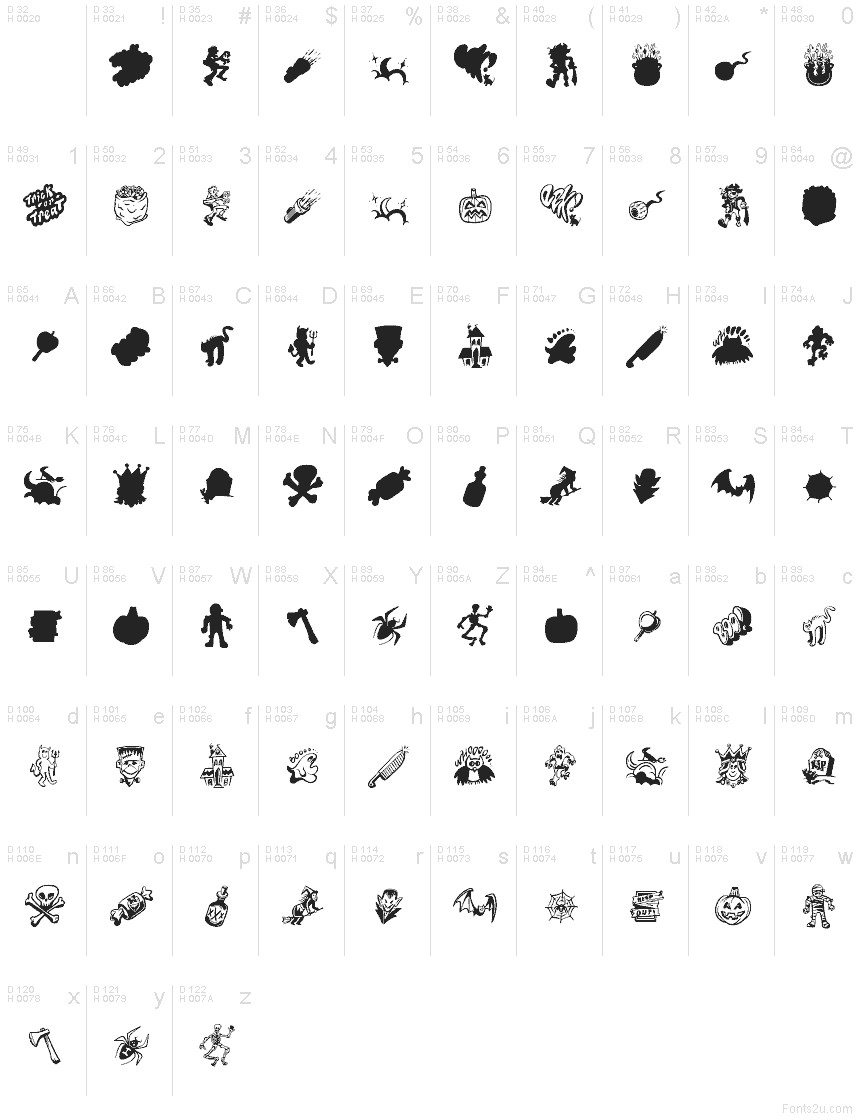
Halloweenies
Halloweenies font by Field 2 Design is a free horror dingbat font. Drawn with inky, cartoon energy, its icons land with a playful shiver—bold outlines, crisp fills, and just enough wobble to feel hand‑made. Instead of fussing with illustrations, you drop a glyph and get an instant Halloween motif that scales cleanly from tiny tags to big banners.
Using Halloweenies, you can whip up party flyers, classroom worksheets, treat-bag toppers, social posts, stickers, invites, and bulletin-board headers in minutes. The set’s consistent weight and rhythm keep layouts tidy, even when you mix lots of pictograms. Pair this free font with a chunky sans for headlines, and let the icons run larger than text for a punchy, candy-bucket look.